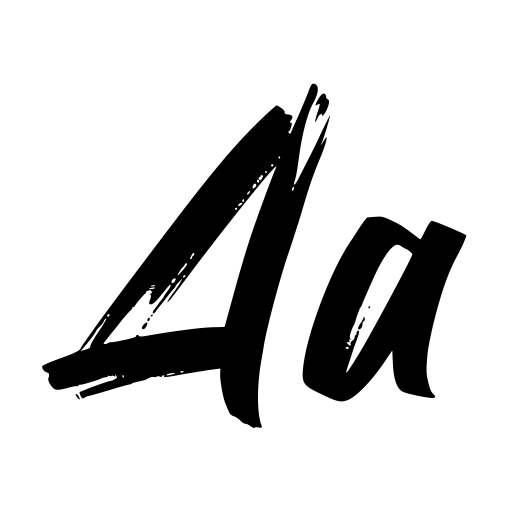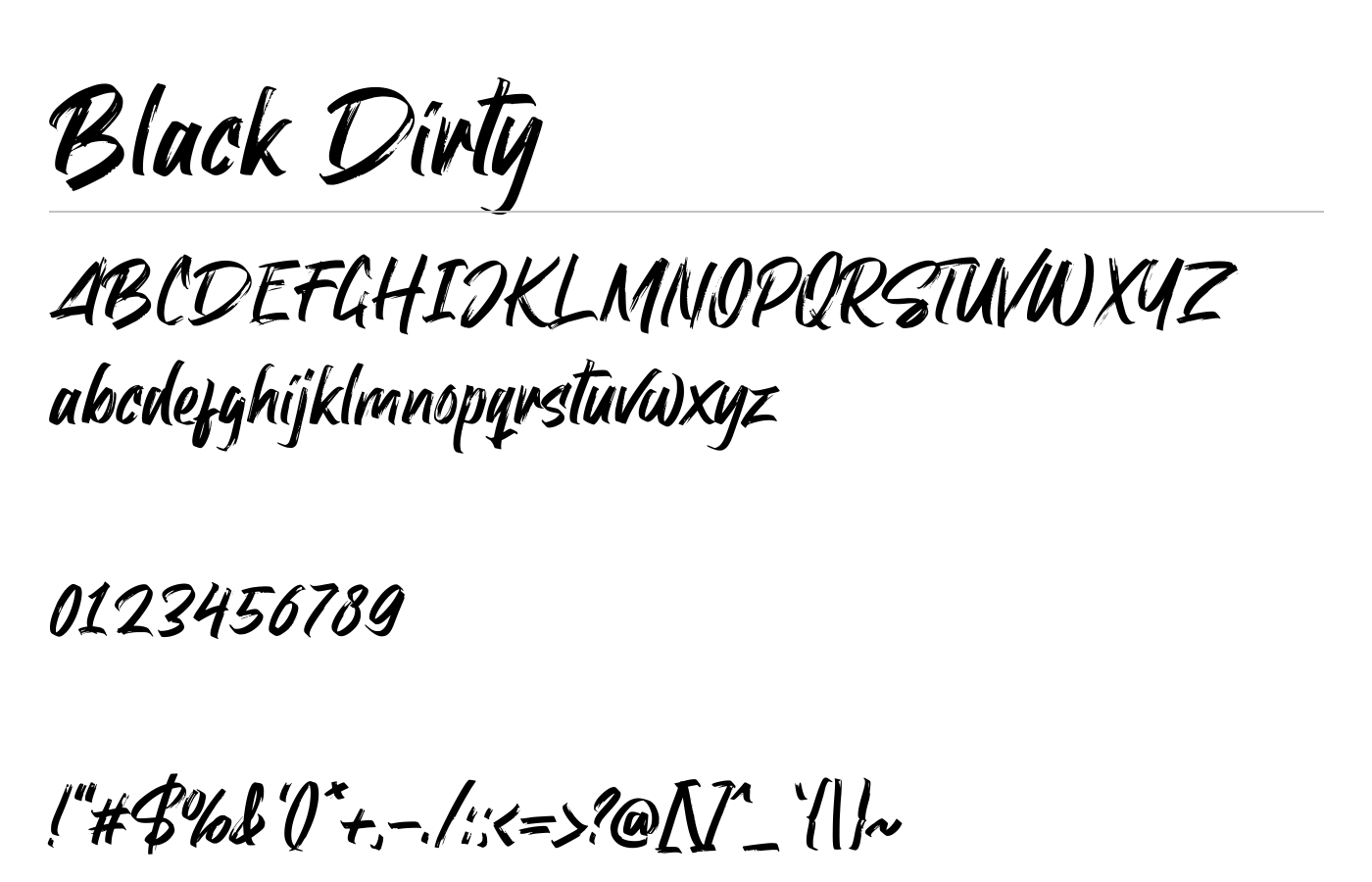
Black Dirty is a bold, brush-style script font with a rough, textured appearance that adds a raw, energetic vibe to any design. Its dynamic strokes and casual, hand-painted look make it perfect for attention-grabbing headlines, urban branding, and creative projects that want to convey a sense of grit and personality. This font works best where a bold, expressive, and informal style is desired.
Black Dirty Font
About Black Dirty Font